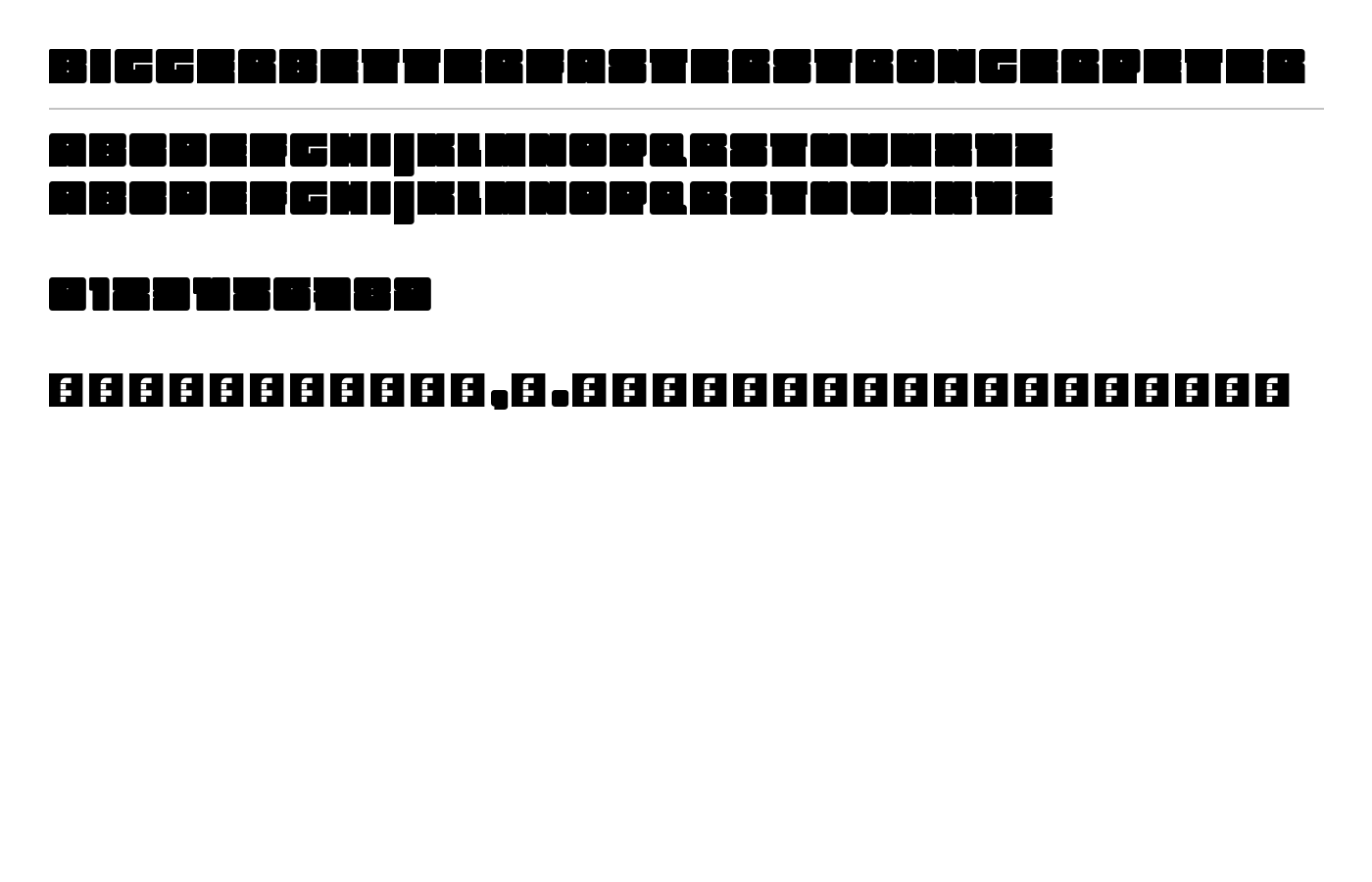
BiggerBetterFasterStrongerPeter is a bold, heavy-weight sans serif font with a strong, blocky design that commands attention. Its thick, consistent stroke weight and squared letterforms give it a modern, industrial feel perfect for impactful headlines, logos, or branding that needs a powerful, confident presence. This font works best in large display settings where its solid and condensed shapes can create a striking visual statement.
BiggerBetterFasterStrongerPeter Font
About BiggerBetterFasterStrongerPeter Font
| Font family | BiggerBetterFasterStrongerPeter Font |
| Designer | Peter Nijboer |